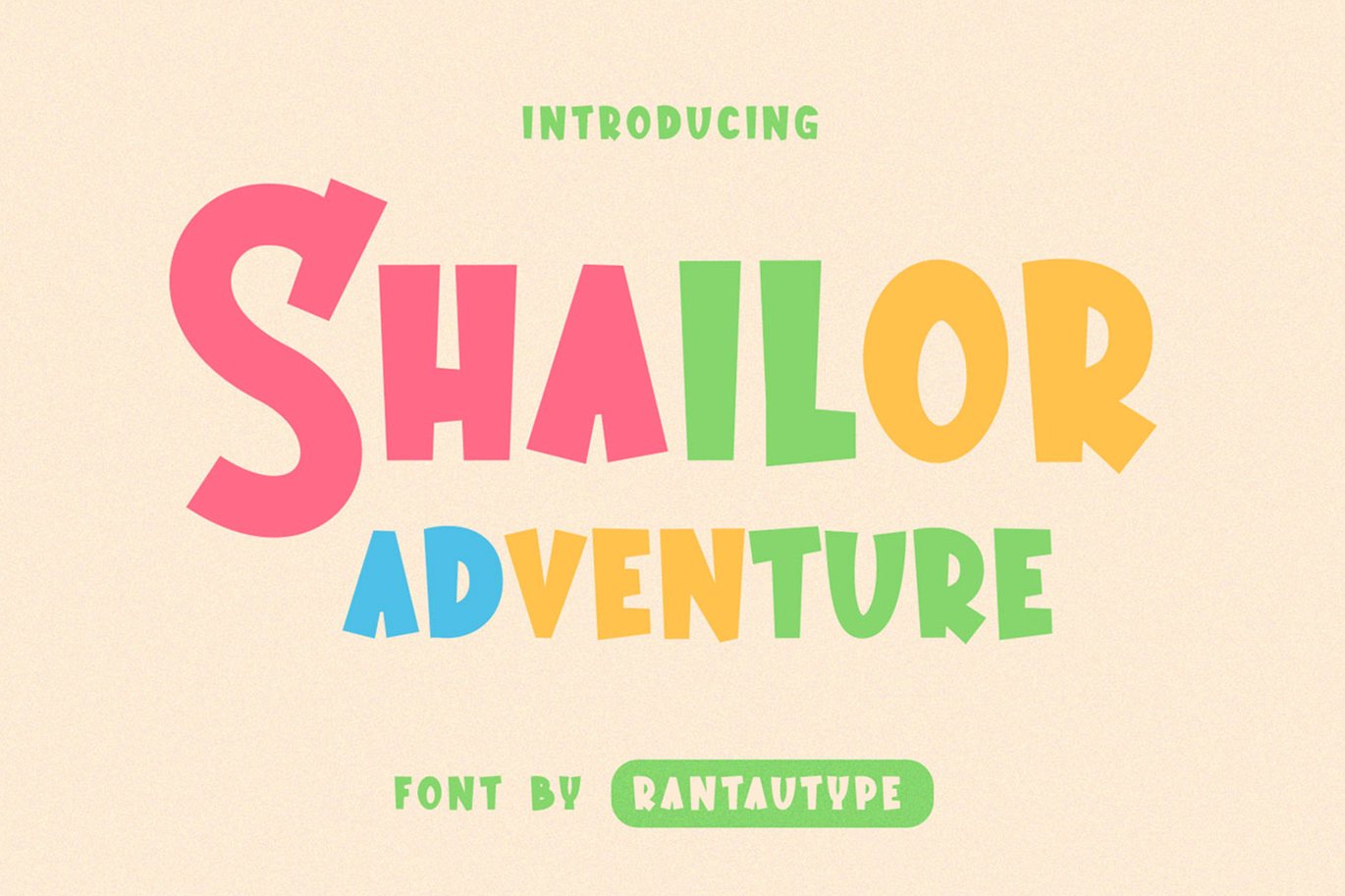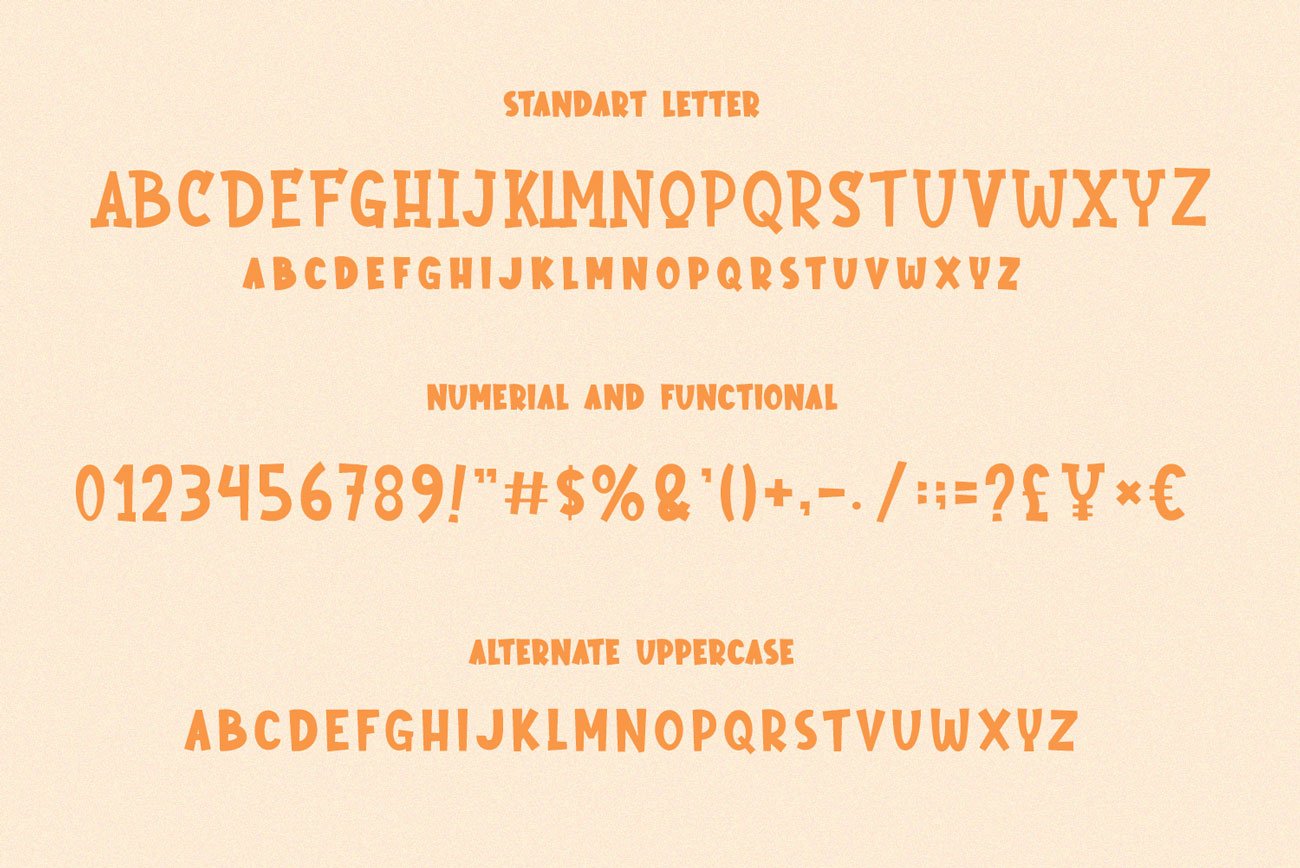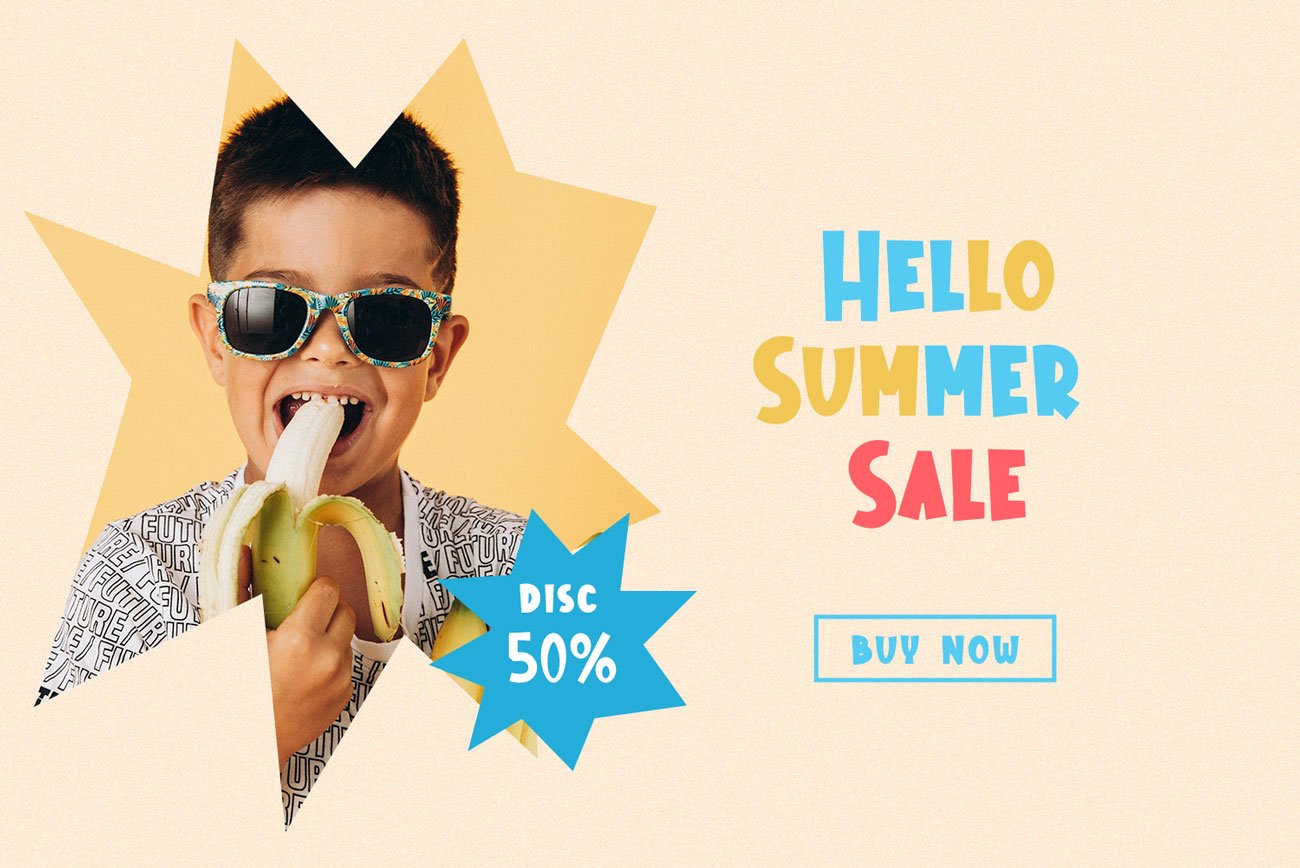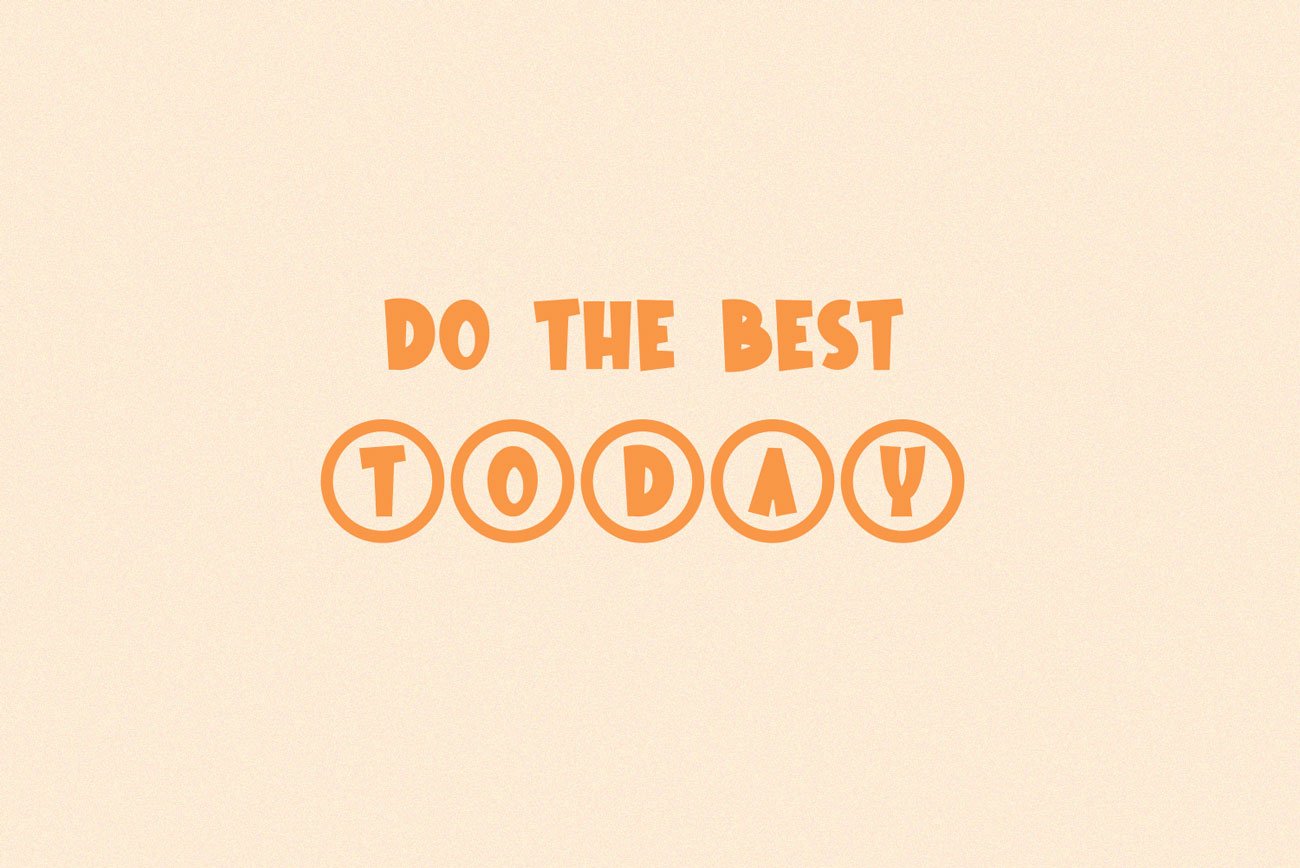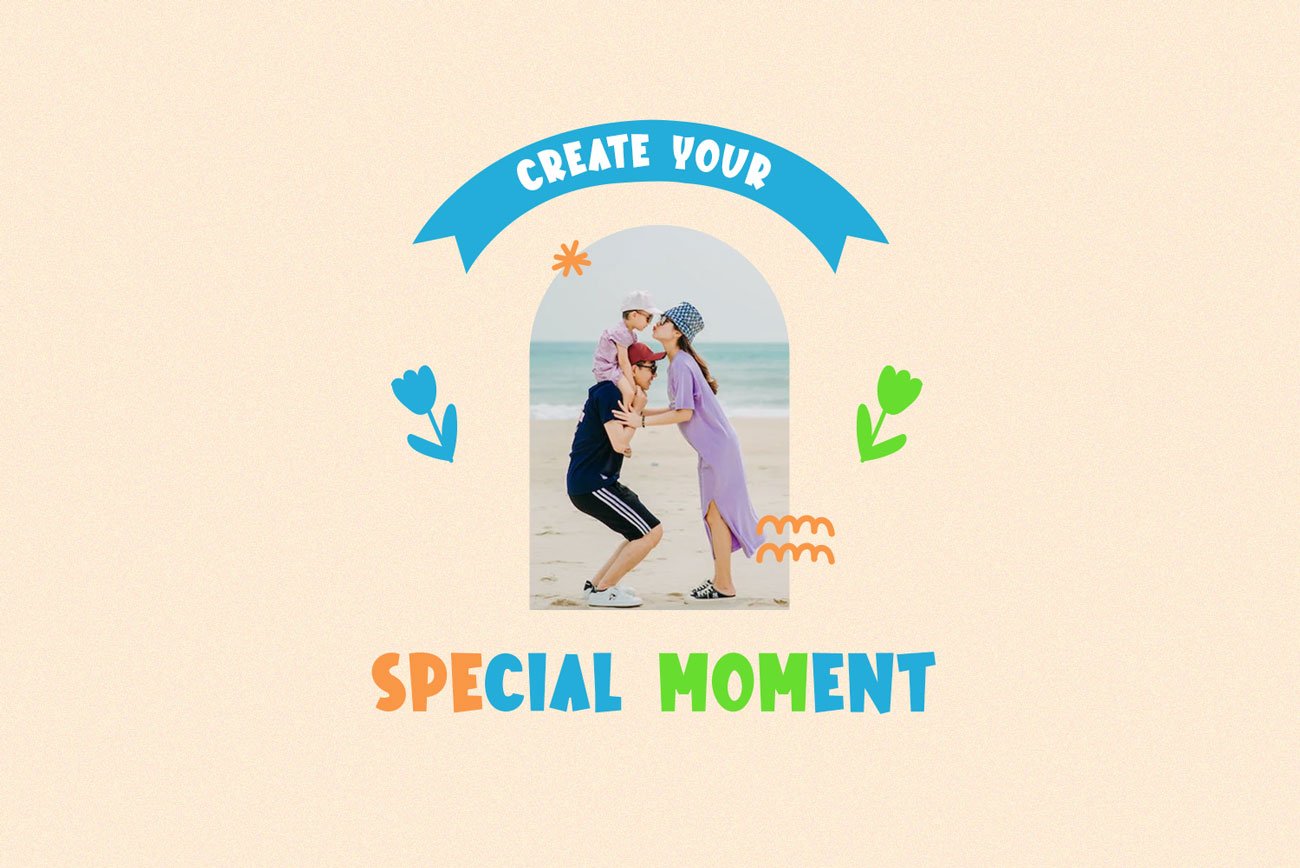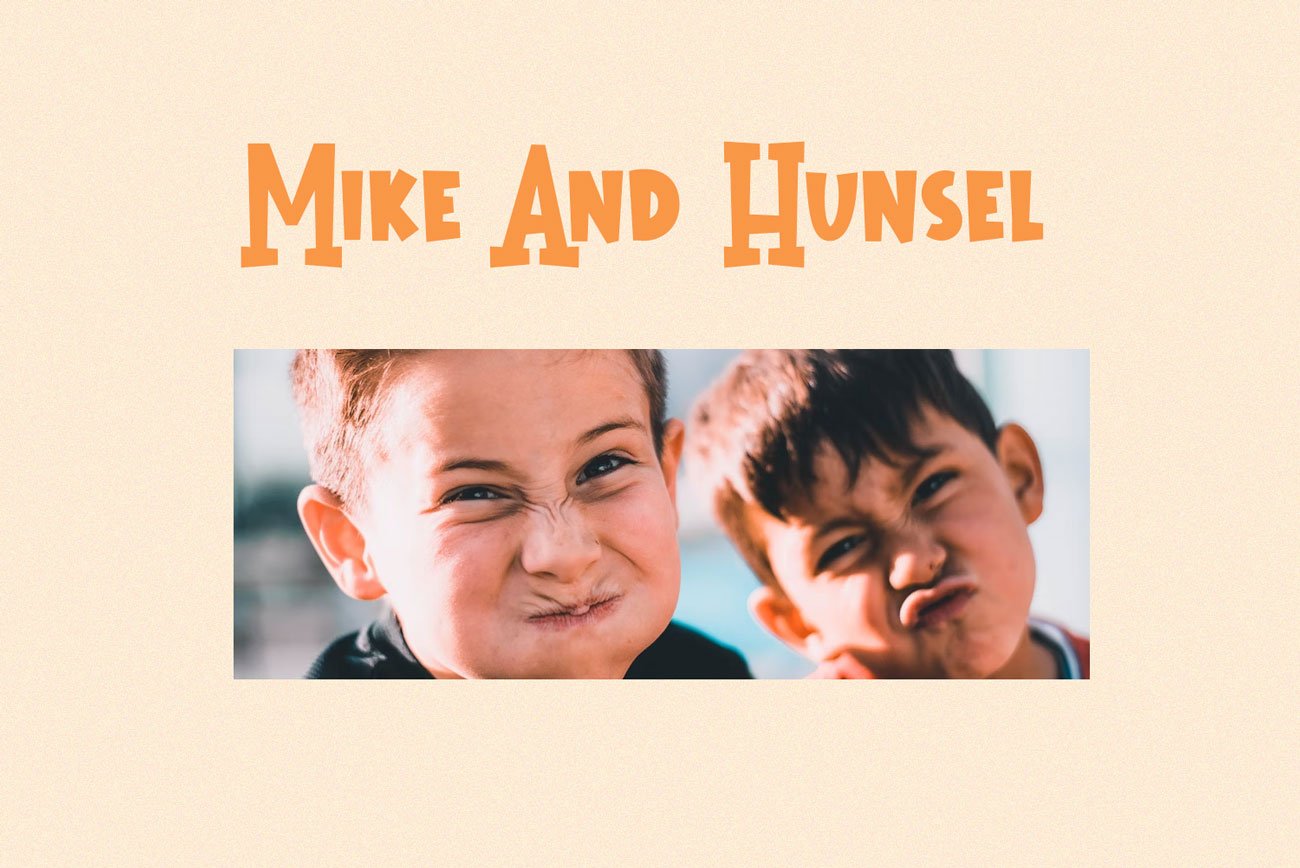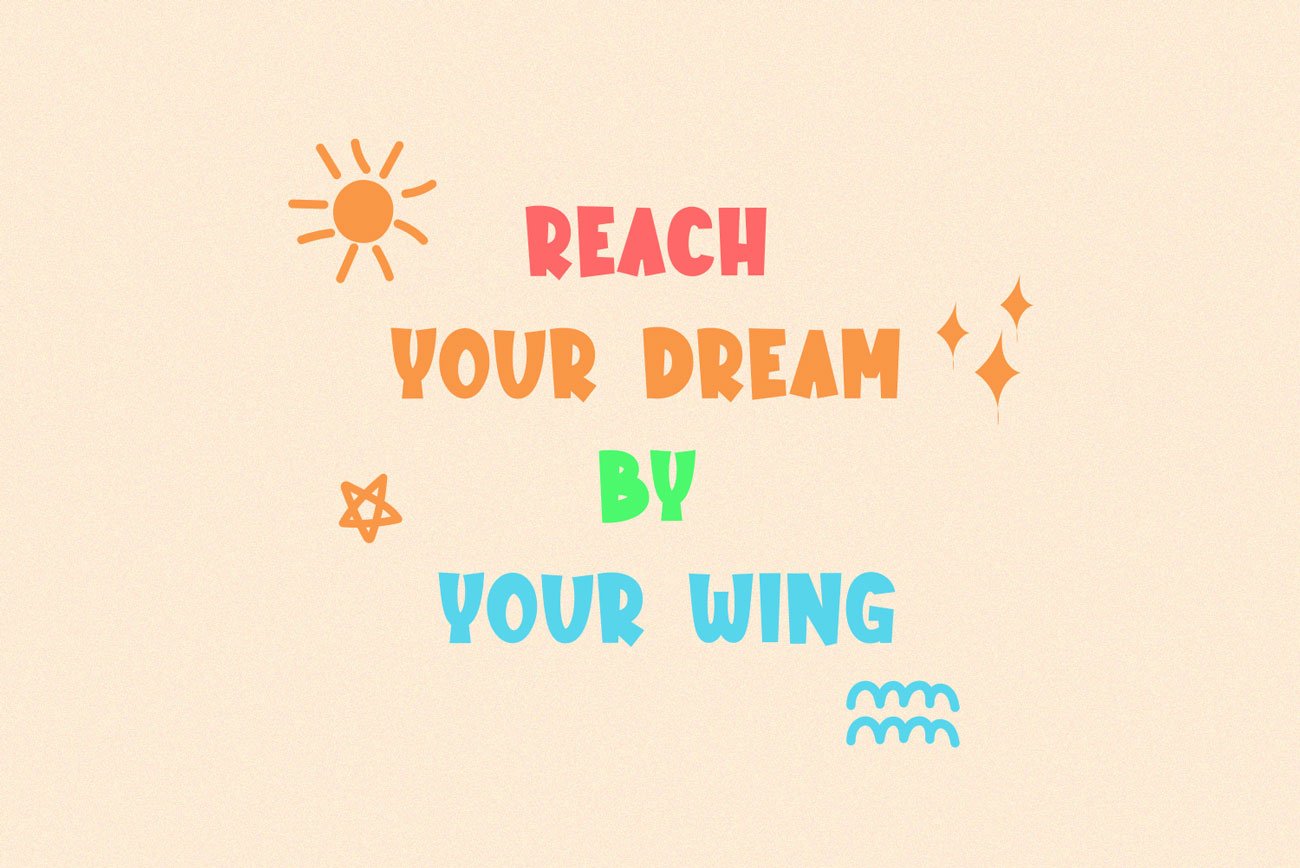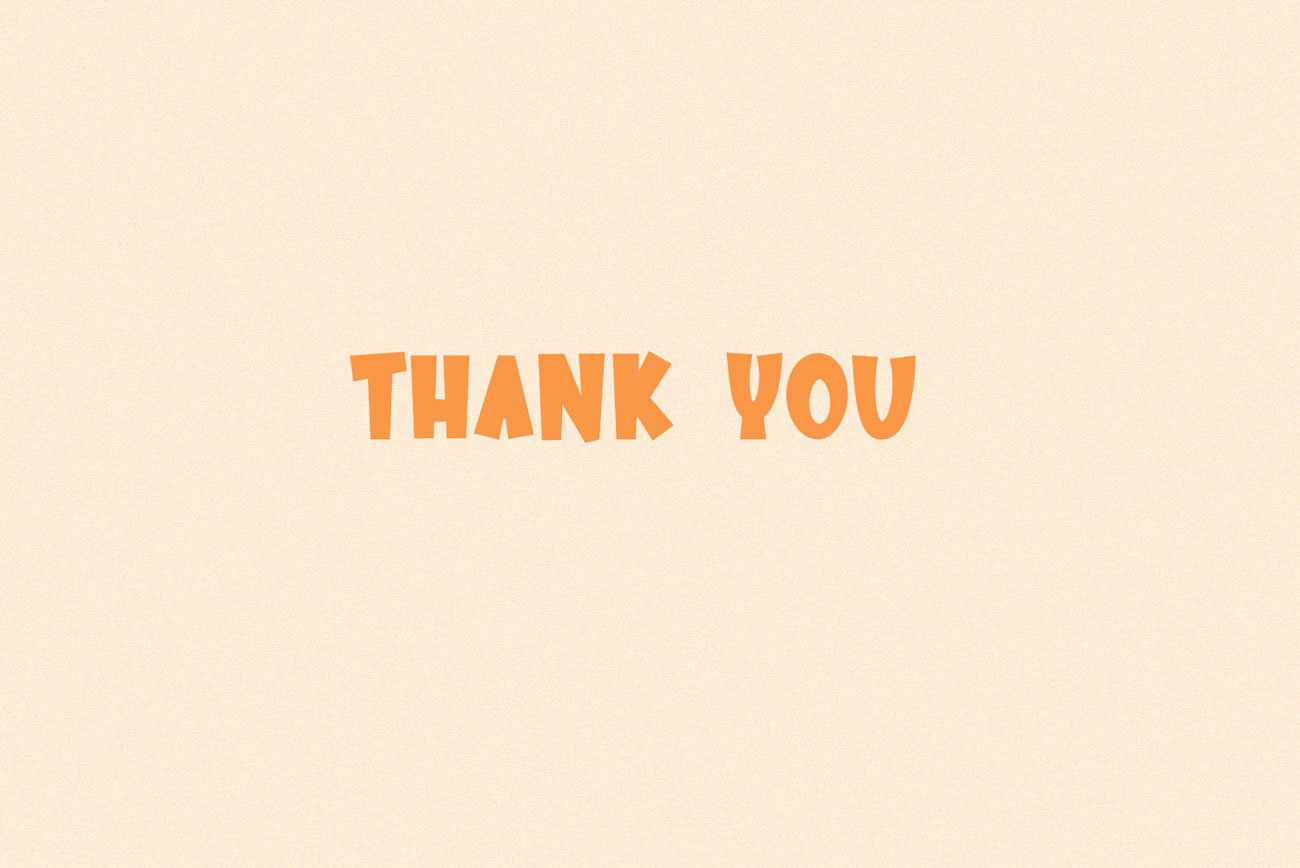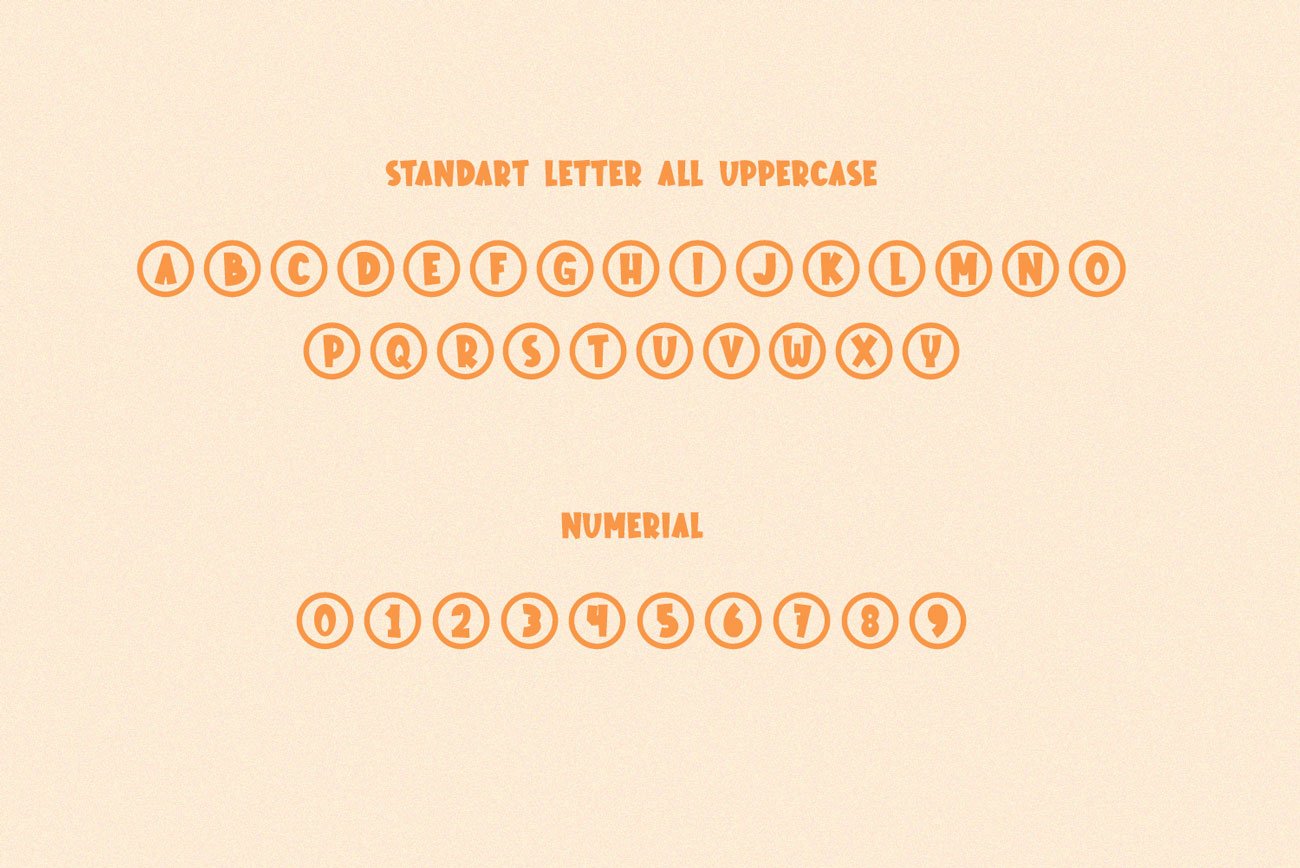
Sailor Adventure Playful Font
Introducing
Hallo, my name is Sailor Adventure. I am a cool, fun and modern  font. I would look perfect on creating designs targeted towards children . This font suitable  for logos, packaging designs, posters, t-shirt, business card, quotes, books, etc. Let’s we go, to make you business go to next level with Special Moment.